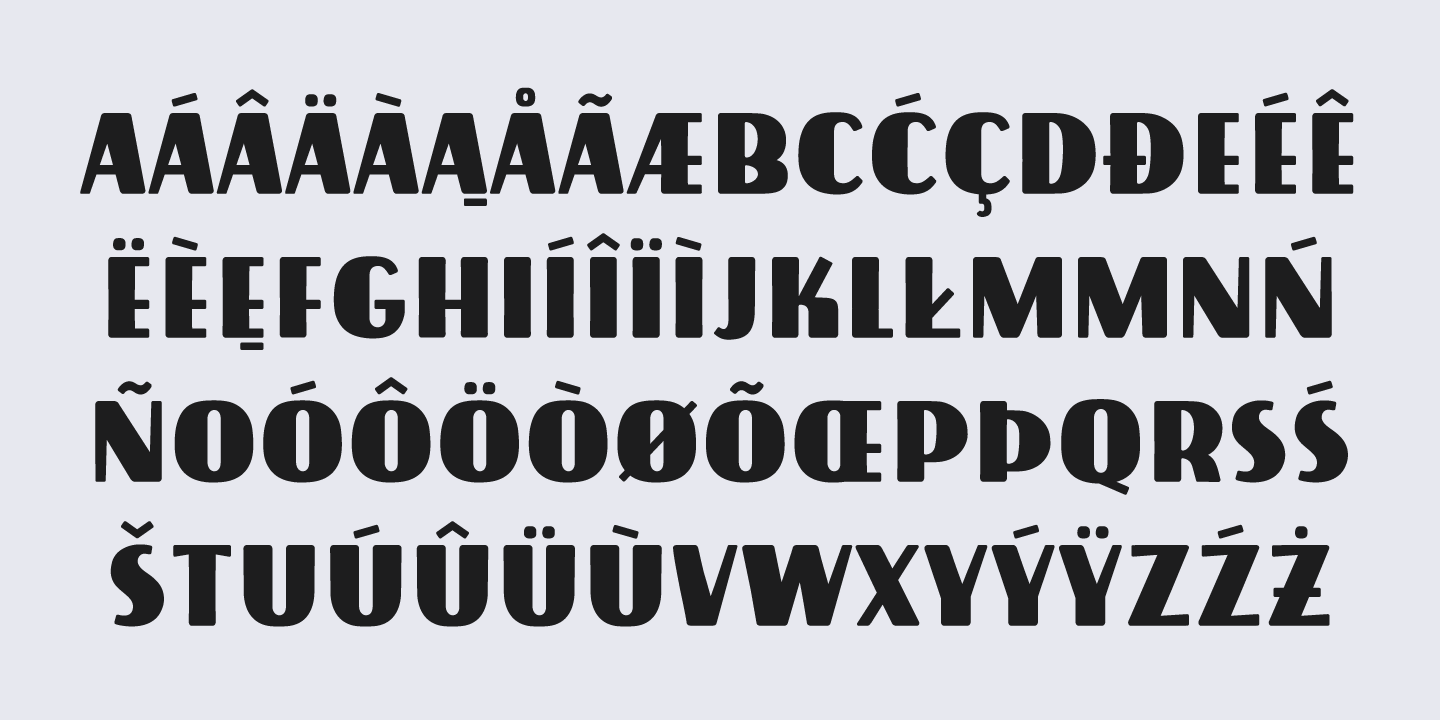
Rudolf Font is perfect for vintage branding projects, retro advertising campaigns, classic book covers, traditional brewery logos, nostalgic packaging design, heritage brand identities, antique shop signage, historical publications, artisanal product labels, and timeless poster design. This distinctive typeface brings authentic old-world charm to any design project requiring classic character.
What makes Rudolf Font exciting is its masterful recreation of traditional European typography with modern digital precision. The font features robust, weathered letterforms that capture the essence of vintage craftsmanship and historical authenticity. Its distinctive character includes strong, bold strokes with subtle irregularities that create a genuine aged appearance while maintaining excellent legibility. The typeface's nostalgic appeal makes it perfect for brands seeking to establish heritage, tradition, and timeless quality through their visual communications, evoking memories of classic European design traditions.
The Rudolf Font family includes regular and bold weights, along with distressed and clean versions that offer versatility for different design applications. This comprehensive vintage font collection provides multiple character variations, decorative elements, and period-appropriate symbols that enhance its historical authenticity. The font includes uppercase and lowercase letters with extended punctuation marks and numbers designed to match the typeface's traditional aesthetic.
Whether you're developing heritage brand identities, designing vintage-inspired marketing materials, or creating nostalgic publications, Rudolf Font Free Download delivers the authentic character and historical charm that vintage design enthusiasts demand. Its timeless appeal and exceptional craftsmanship make it essential for creating genuinely classic typography.